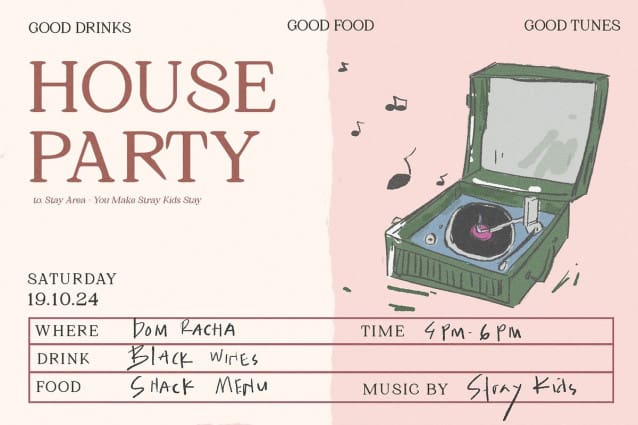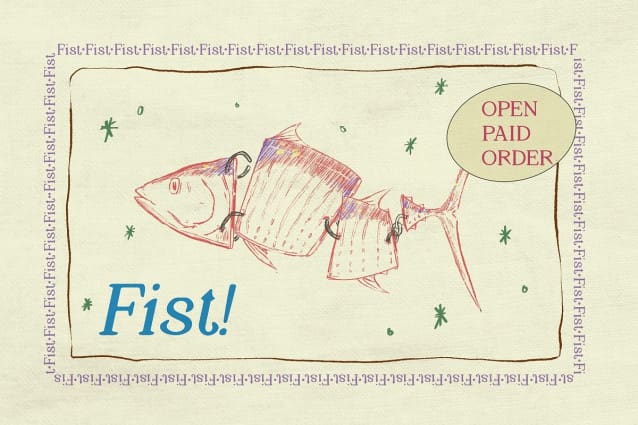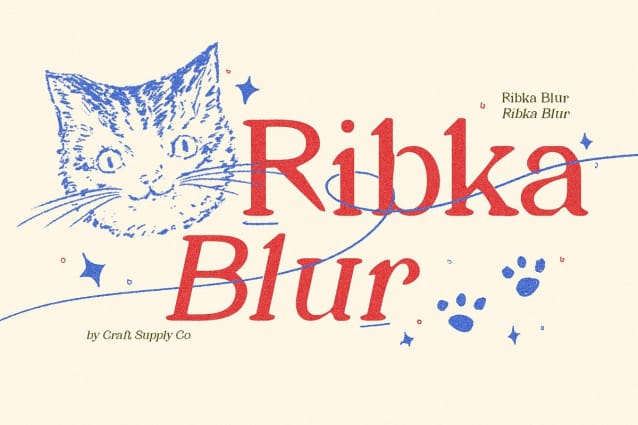
Ribka Blur Font
Ribka Blur Font is a modern serif font that embodies a minimalist, clean, and slim design, creating a refreshing and elegant impression. Its smooth lines and balanced proportions emphasize a classy simplicity that is perfect for contemporary design projects. This font captures the essence of modern sophistication, making it an ideal choice for brands seeking a refined aesthetic.
Visual Dimension Enhanced by Blur Effect The applied blur effect adds a unique visual dimension and a soft, inviting feel to Ribka Blur. This feature not only enriches its appearance but also provides an artistic touch, blending traditional serif elegance with modern design sensibilities. The blur creates a sense of depth, allowing the font to stand out while maintaining its understated elegance.
Versatile for Various Applications Ribka Blur is suitable for a wide range of design applications, from branding and editorial layouts to elegant invitations. Its adaptability allows it to enhance the visual identity of diverse projects, ensuring a sophisticated yet contemporary appeal. Whether you are designing a stylish magazine cover, a corporate identity, or an invitation to a special event, Ribka Blur offers the versatility needed to elevate your work.